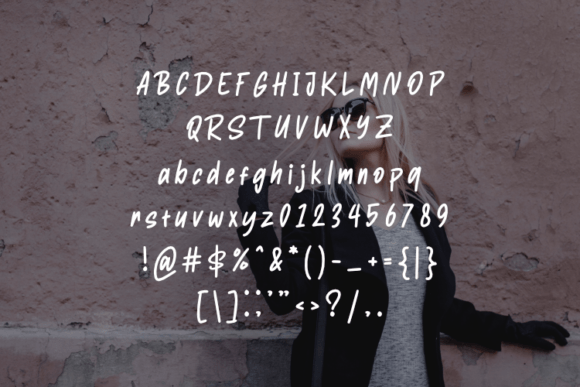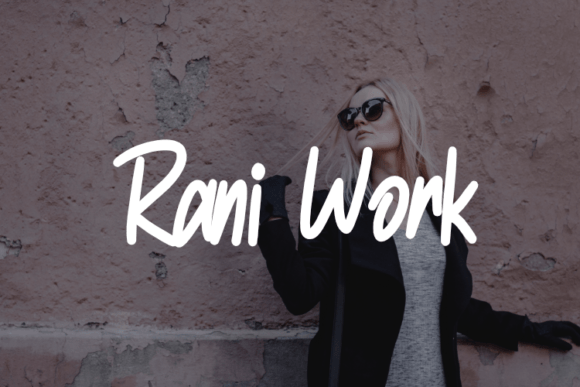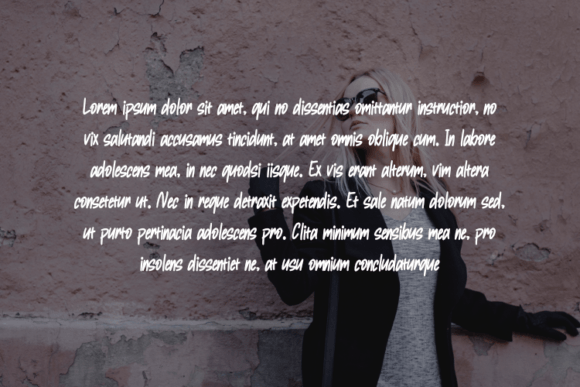
Introduction to Reisma Font
Embodying the union of fashion and design, ‘Reisma’ font brings a fresh and unique approach to product customization.
From stylish clothing items to chic t-shirts and a diverse array of merchandise, the versatility of Reisma shines through Its compatibility with all software platforms makes it a favorite amongst designers, ensuring a perfect fit with any design concept, be it for commercial or personal use.
Key Features of Reisma Font
Reisma Font offers exceptional quality and versatility, making it a valuable addition to your design toolkit. Whether you’re creating for personal projects or commercial use, Reisma Font delivers professional results.